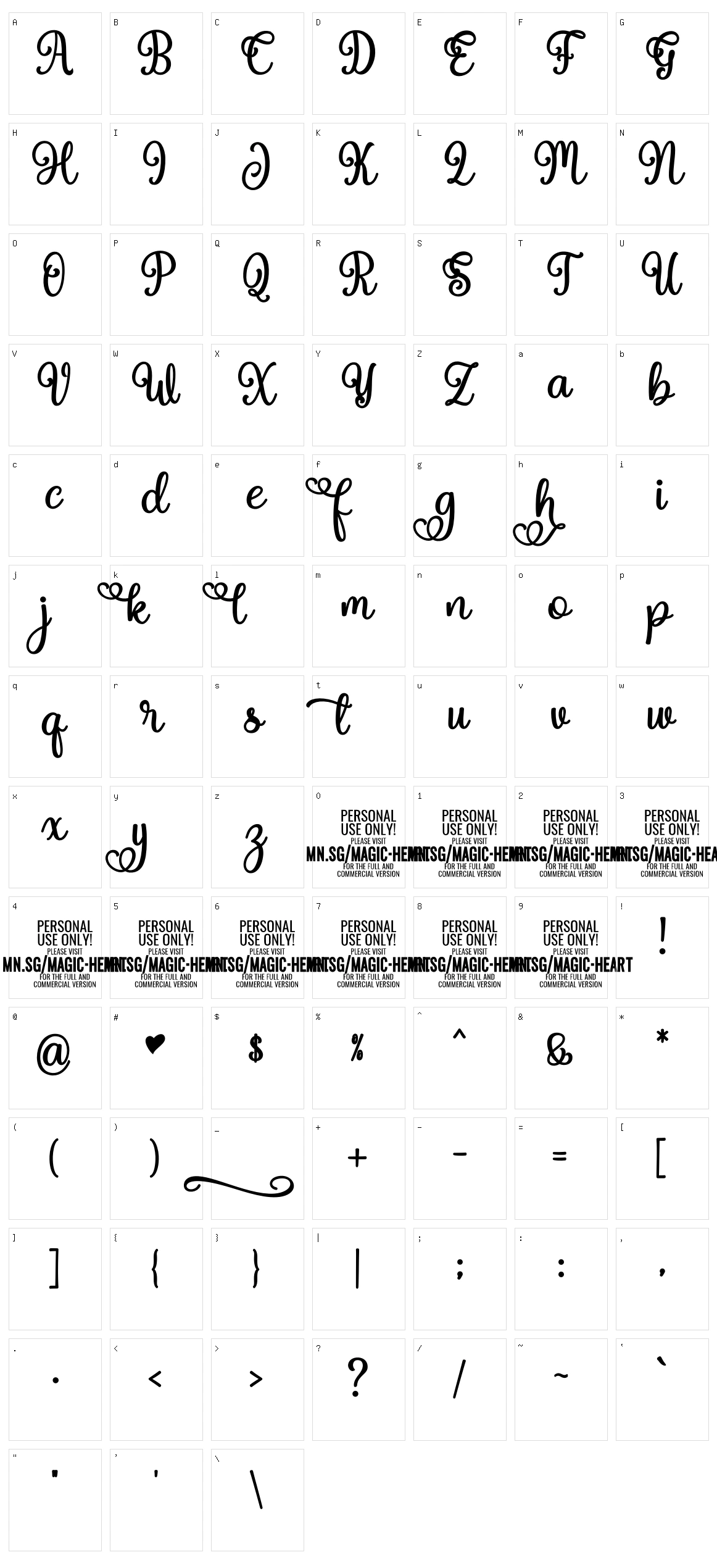
Magic Heart is a swirly script typeface.
A valentine typeface with a romantic flow, Magic Heart has a lovely personality and a passionate appearance.
Its swashy capital letters gives any project a sincere vibe.
Use characters # ¤ for decorative heart symbols.
Use underscore _ anywhere in a word for swashes.
Example: Won_der
Use multiple underscore for different swashes.
Example: Love____rose
The Magic Heart family consists of eight styles:
The ornamental Swash and Swash Bold, the normal Regular and Bold, plus each of the styles as Italic.
The font is built with advanced OpenType functionality and has a guaranteed top-notch quality, containing stylistic and contextual alternates, ligatures and more features; all to give you full control and customizability.
It has extensive lingual support, covering all Latin-based languages, from North Europe to South Africa, from America to South-East Asia.
It contains all characters and symbols you'll ever need, including all punctuation and numbers.